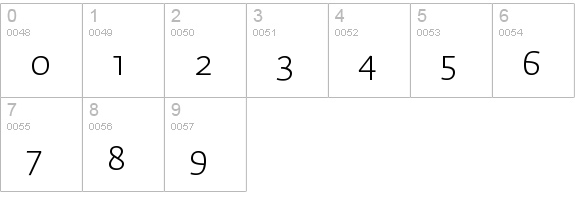
Auto 2 Light is a refined, elegant variant in the Auto typeface family \xE2\x80\x94 well suited to elegant body text, refined sub-headings, and luxury branding.
Auto 2 Light is a modern and sleek font that exudes sophistication and elegance. Its clean lines and minimalistic design make it perfect for a wide range of design projects, from branding to editorial layouts. The light weight of this font adds a touch of subtlety and refinement to any text, creating a harmonious and balanced visual appeal. What sets Auto 2 Light apart is that it is available for free download at FontsMarket.com, making it accessible to designers and creatives of all levels. Whether you're working on a personal project or a professional assignment, Auto 2 Light offers a versatile and stylish option that is sure to elevate your designs. Don't miss the opportunity to add this beautiful font to your collection and enhance your creative endeavors with its timeless charm and modern flair.